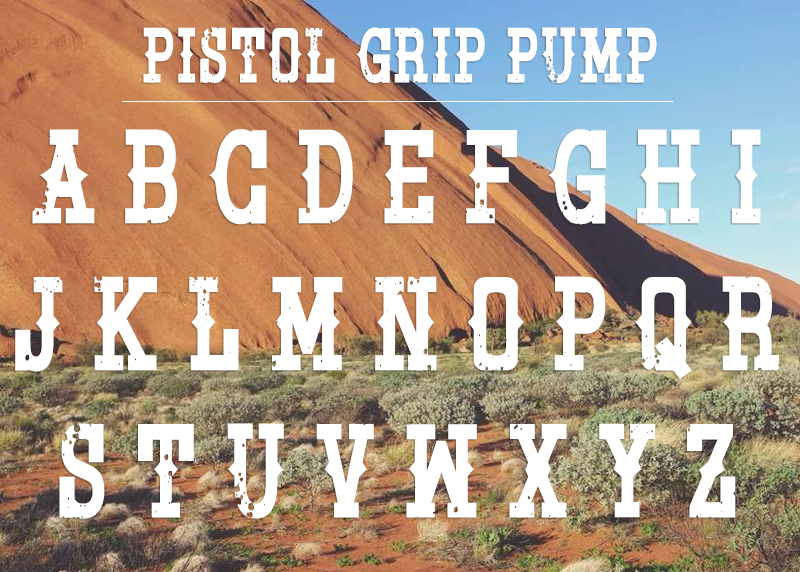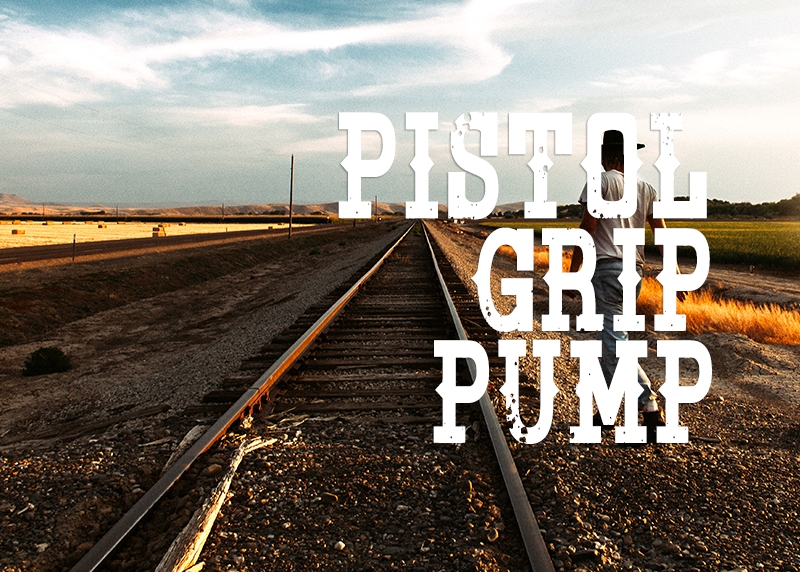
Pistol Grip Pump is an all caps eroded & solid western themed font. It has limited symbols (Exclamation point, question mark, comma, and period only) and no numbers. I designed the font for use in titles, letter heads, logos, etc. If you really want numbers I will consider designing them per project basis, email me with your needs and I will reply within a few hours.